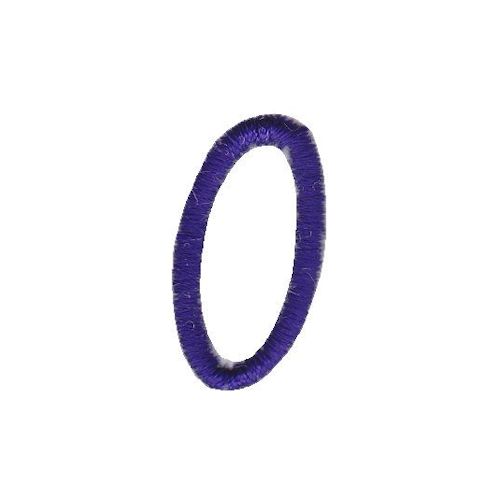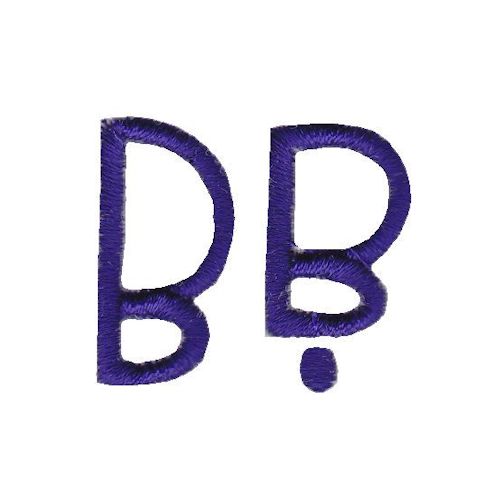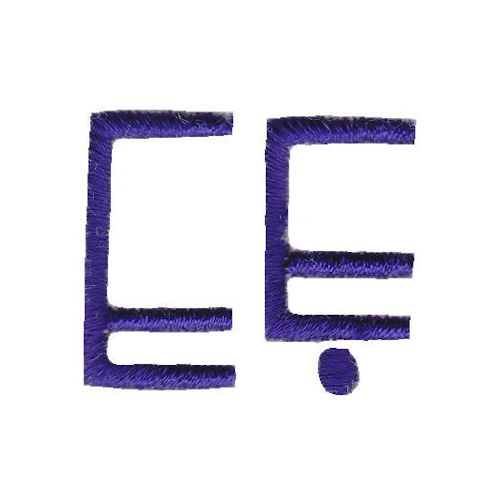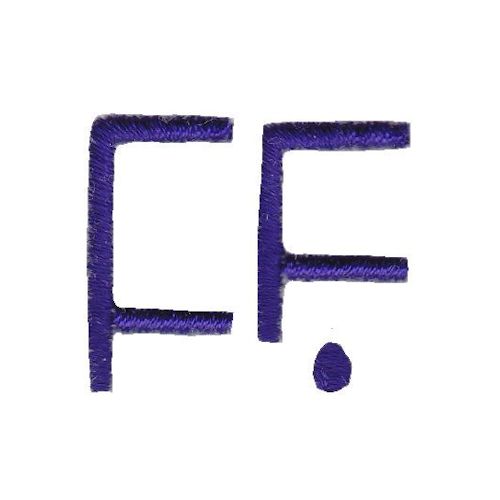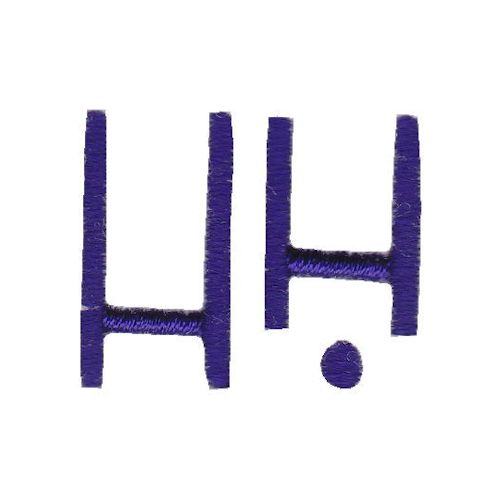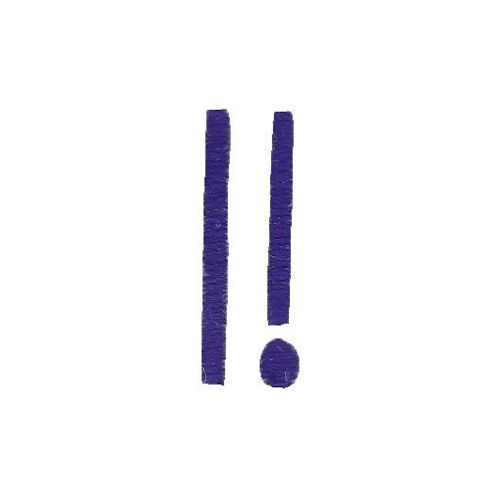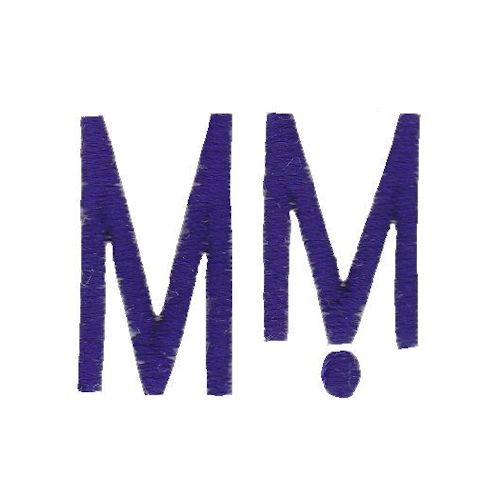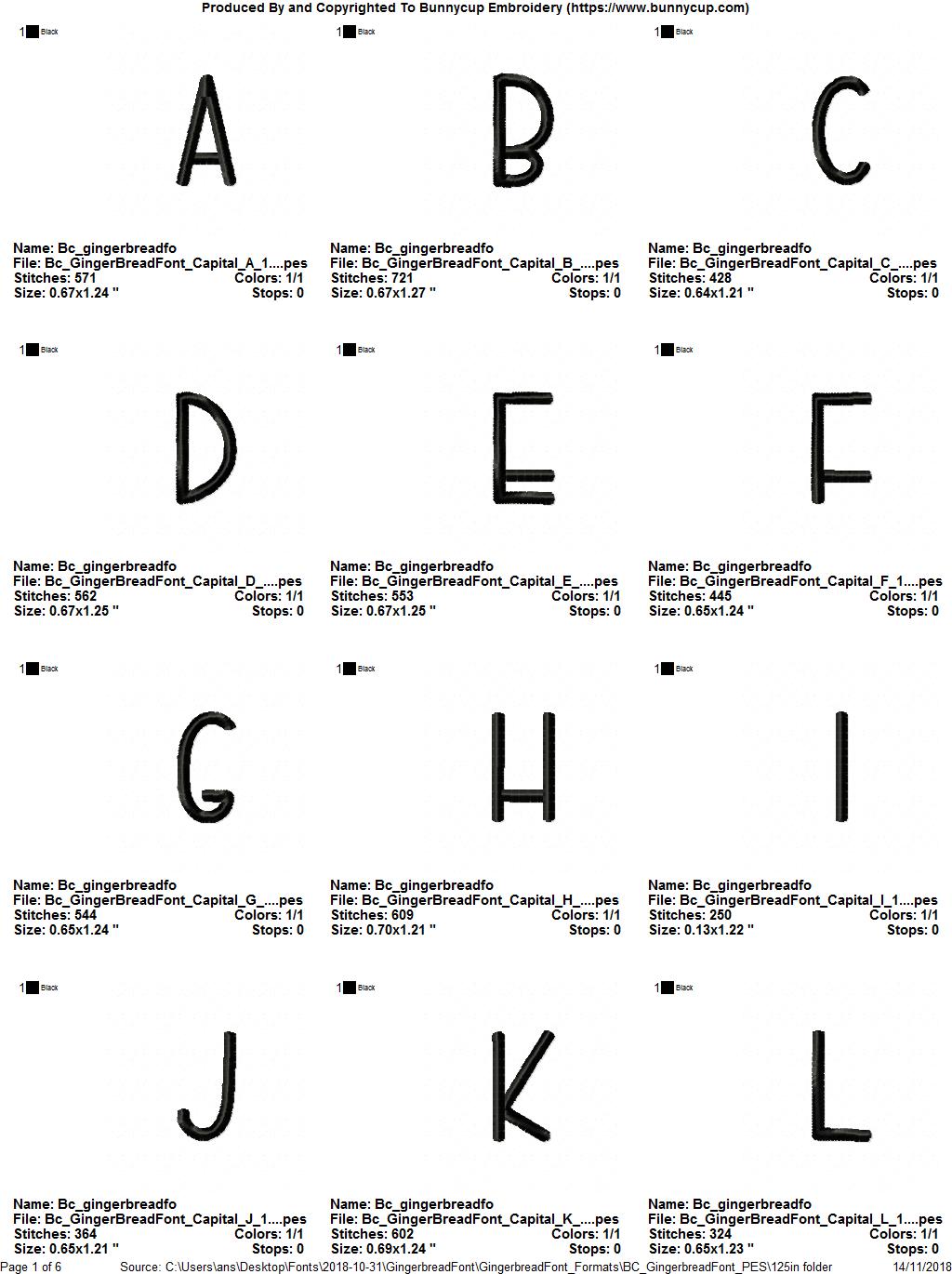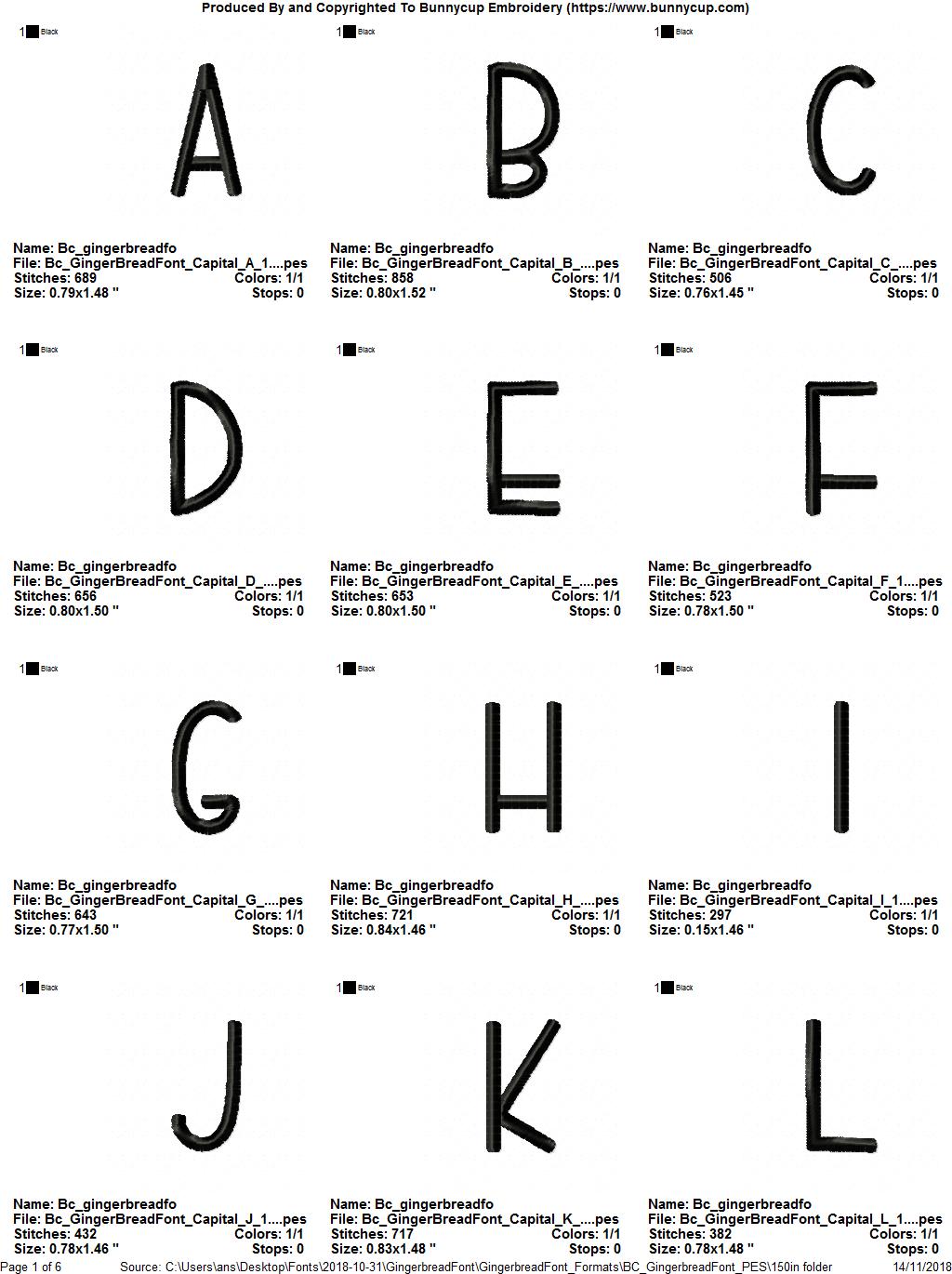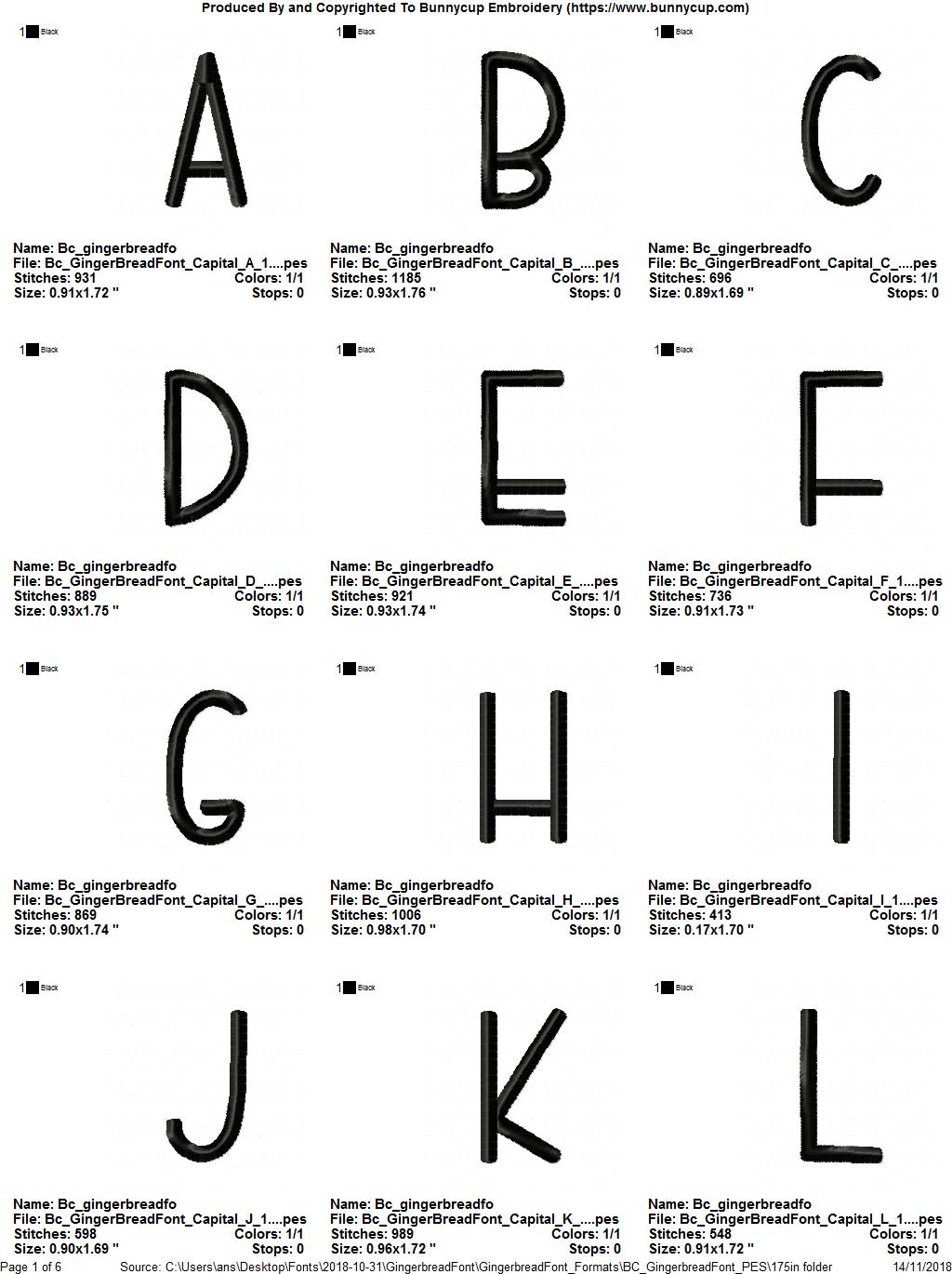
Gingerbread Font
Gingerbread Font is a super cute embroidery font with it's own character. This 5 great sizes - 1 Inch, 1.25 Inches, 1.5 Inches, 1.75 Inches and 2 Inches. The font includes Capitals, Lower Case and Numbers as displayed. BX files are also included for use with the Embrilliance software when purchasing the full alphabet set. Just choose your machine format, and the BX files will be included with your machine format files. See our full range of